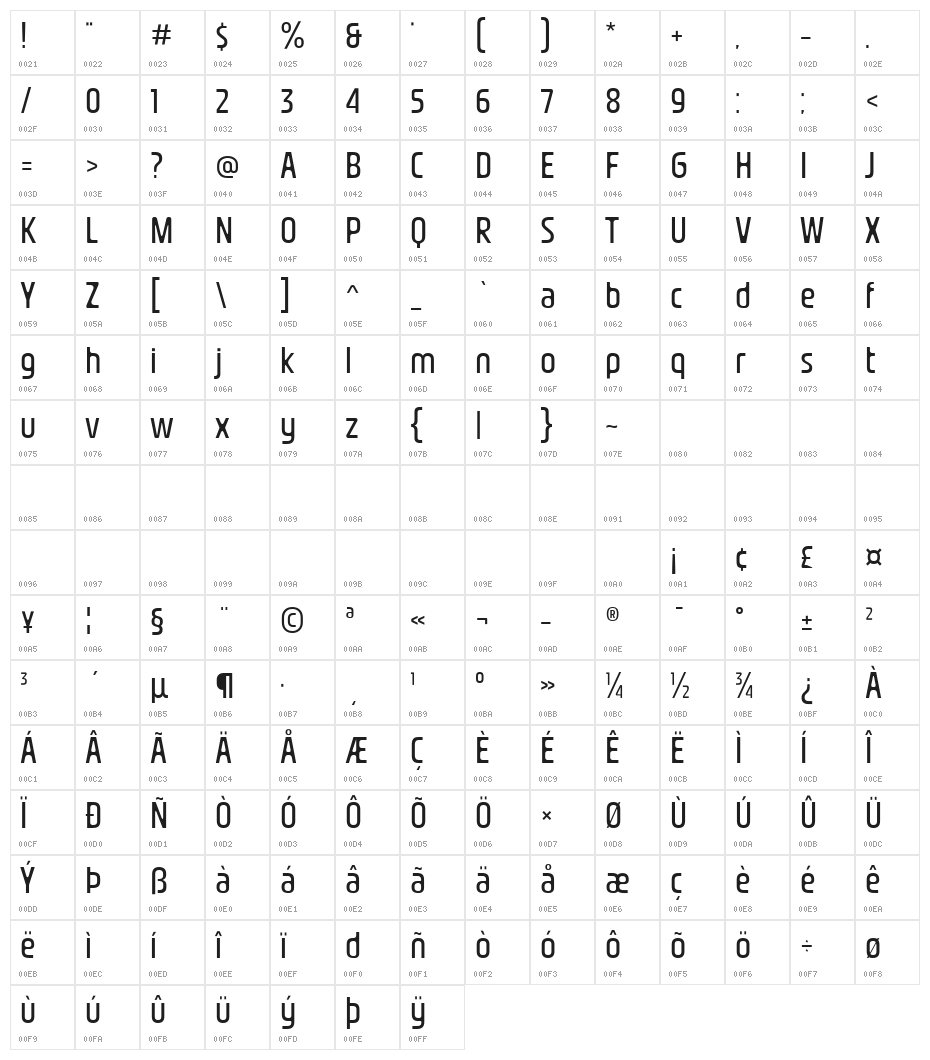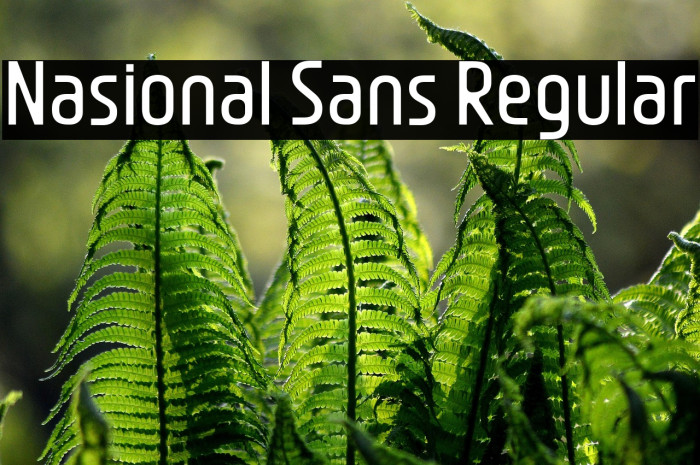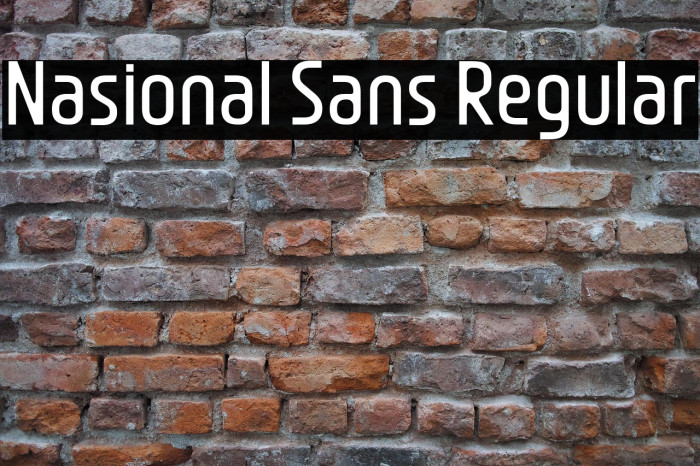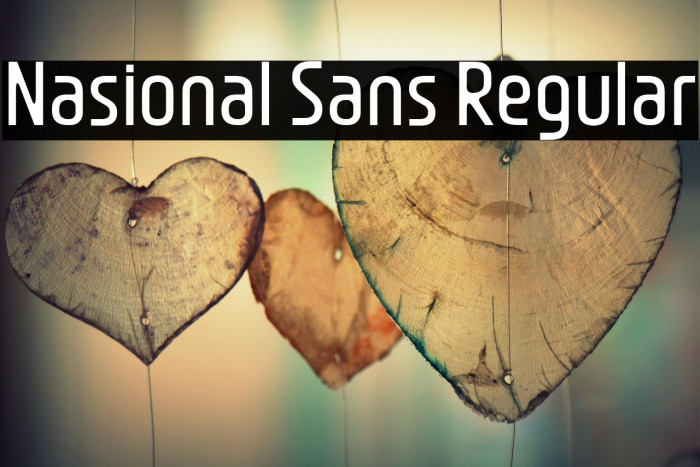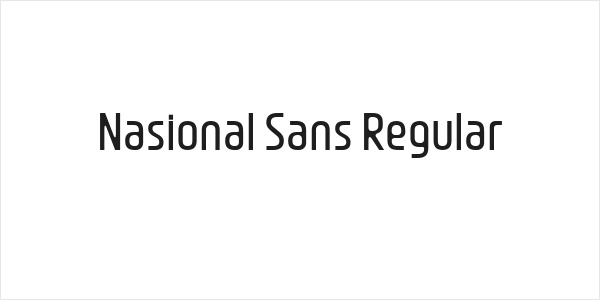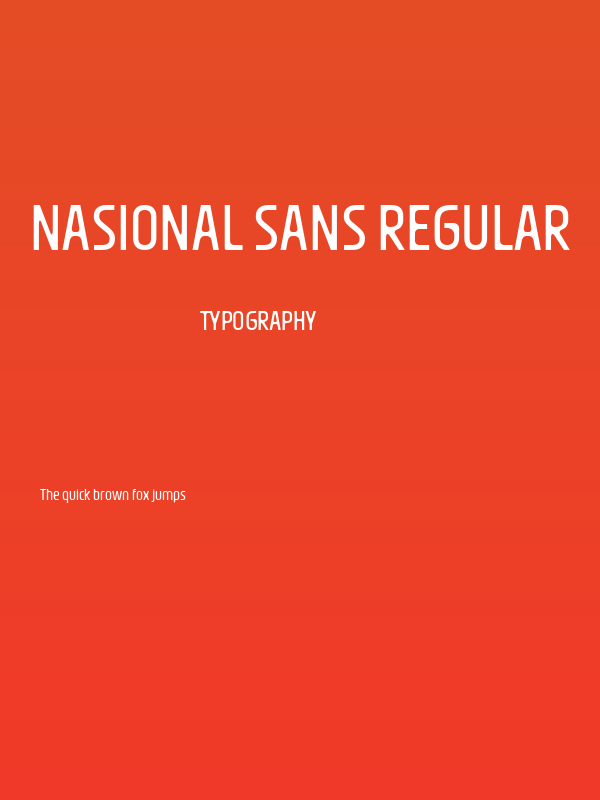
Nasional Sans Regular Font
Nasional Sans Regular Description
This typeface features a clean and modern sans-serif design with a geometric structure. The characters are well-balanced, with a consistent stroke width that gives it a uniform appearance. The uppercase letters are slightly taller than the lowercase, providing a clear distinction between the two. The numerals are designed to align well with the text, maintaining the font's overall harmony. Special characters are included, offering versatility for various uses. The font's simplicity and clarity make it suitable for both digital and print media.
| Proposed Projects | Ideal for branding, web design, user interfaces, and editorial design due to its clarity and modern appeal. |